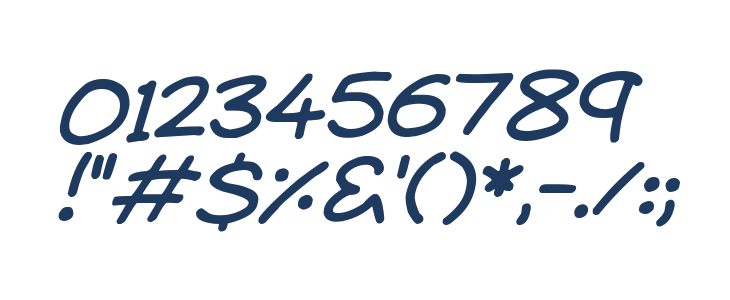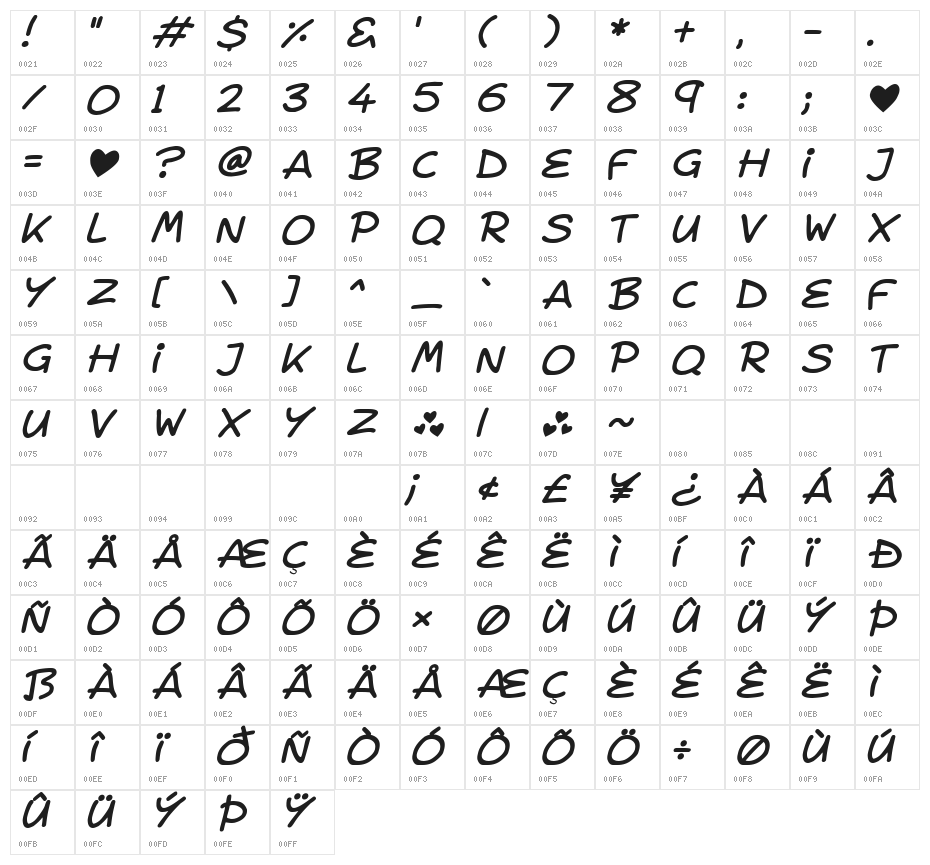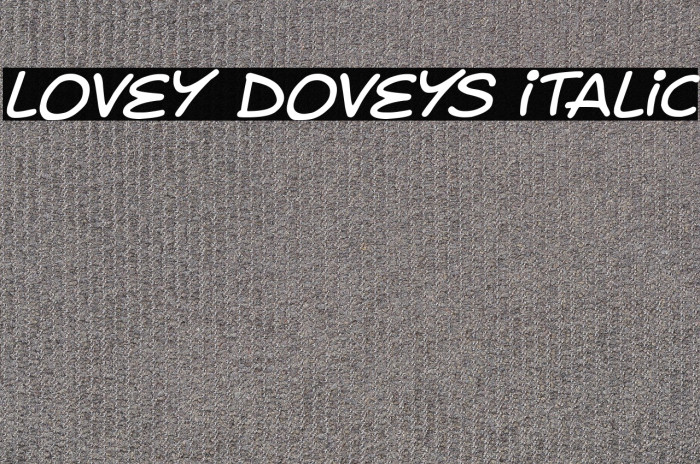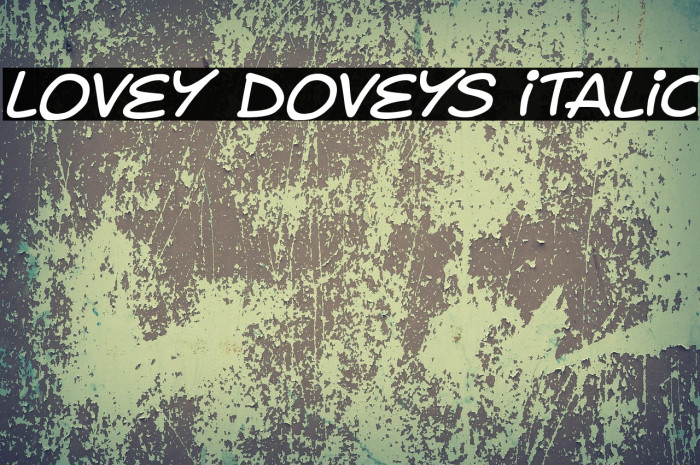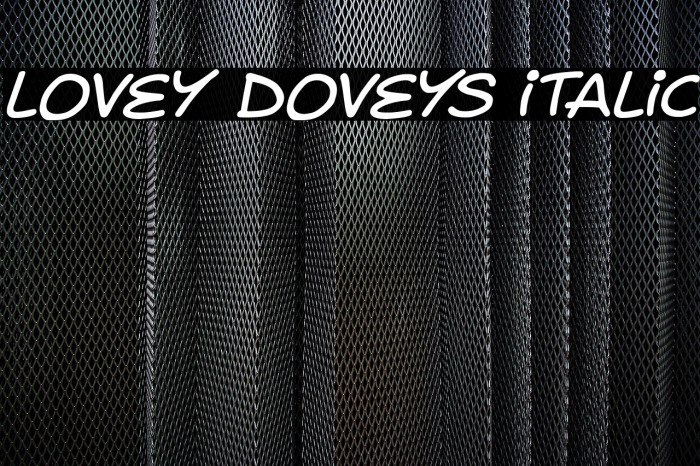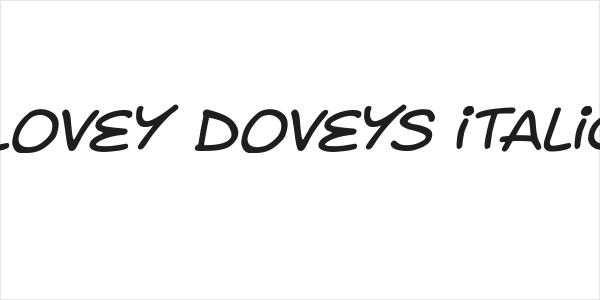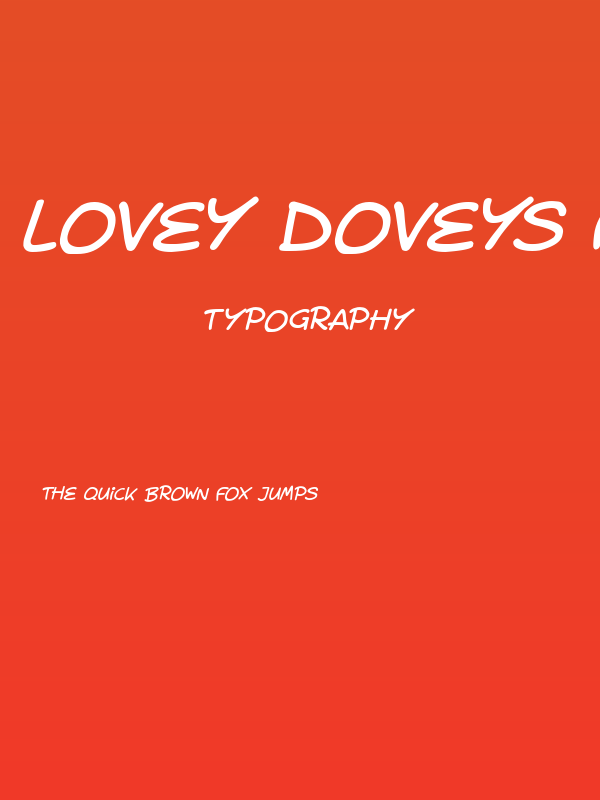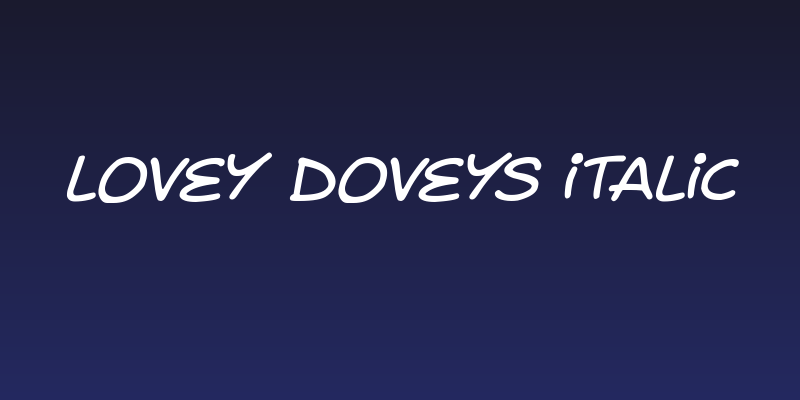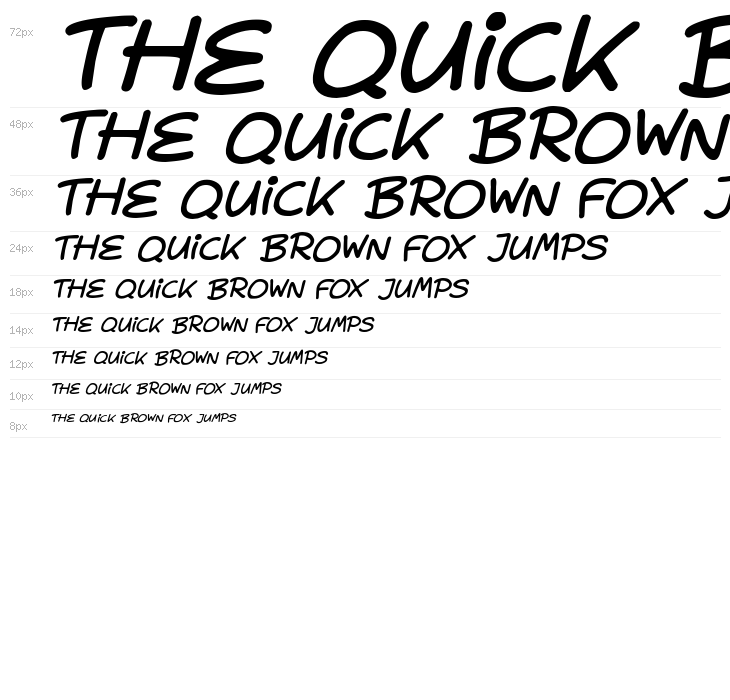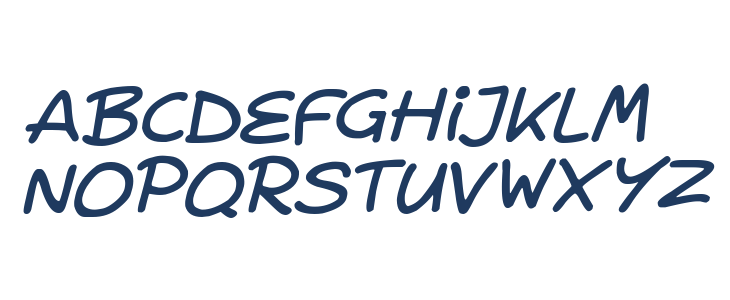
Lovey Doveys Italic Font
Lovey Doveys Italic Description
This playful and energetic font features a handwritten style with a smooth, flowing appearance. The characters are slightly slanted, adding a dynamic and informal touch. The strokes are consistent in thickness, providing a uniform look across all letters and numbers. The font includes both uppercase and lowercase letters, as well as a full set of numerals and a variety of special characters. Its rounded edges and casual flair make it ideal for projects that require a personal and friendly tone.
| Use Case | Headlines, Informal text, Branding |
| Proposed Projects | Ideal for greeting cards, invitations, playful branding, children's books, and casual social media graphics. |